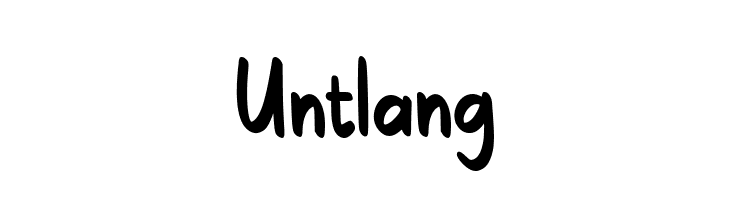
A playful, bold font with rounded, bubbly characters and a whimsical style.
( Fonts by Allouse Studio - Personal-use only. For commercial use please contact owner. )
A lively handwritten font with fluid, connected strokes and a playful, informal style.
( Fonts by Des Gomez )
A playful, hand-drawn font with tall, narrow letters and a whimsical style.
( Fonts by canva.com - Personal-use only. For commercial use please contact owner. )
A bold, modern sans-serif font with clean lines and rounded edges.
A bold, modern font with geometric elements and strong presence.
( Fonts by Iconian Fonts )
A bold, distressed, and slanted font with a gritty, urban aesthetic.